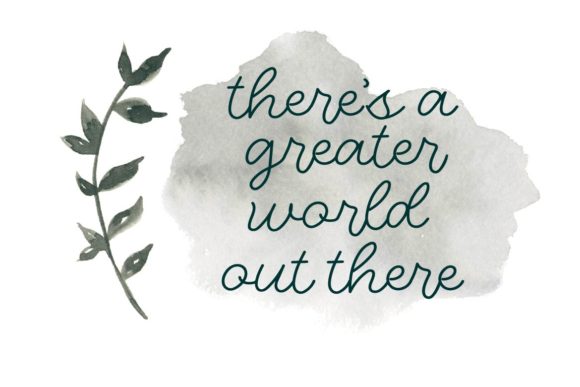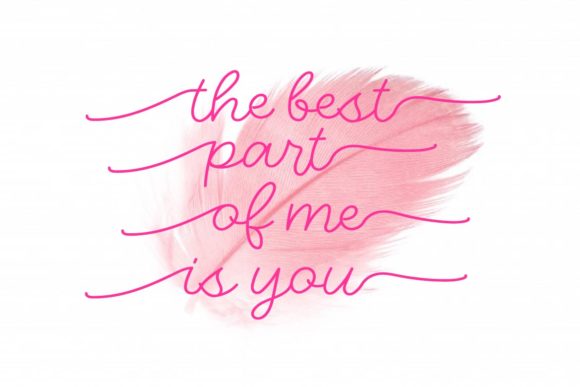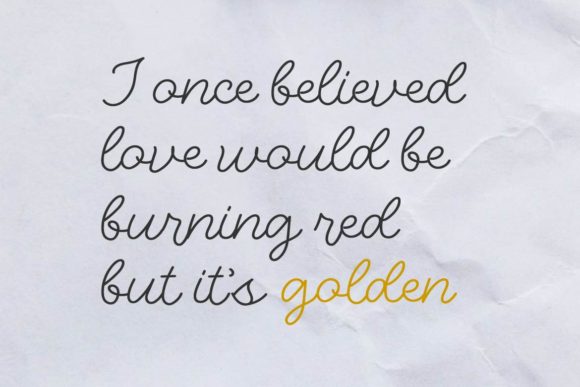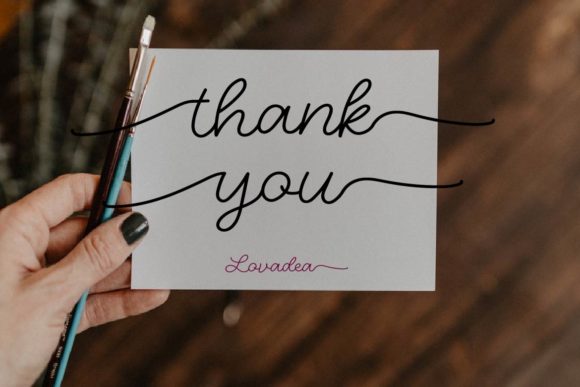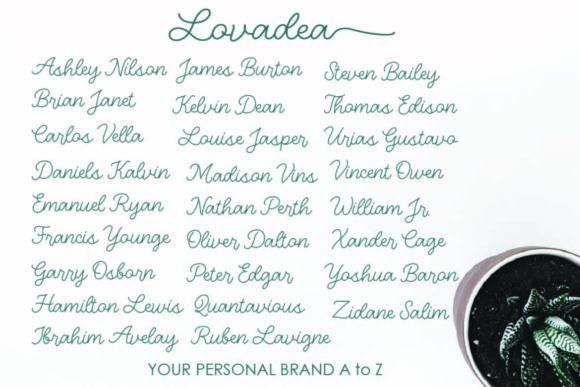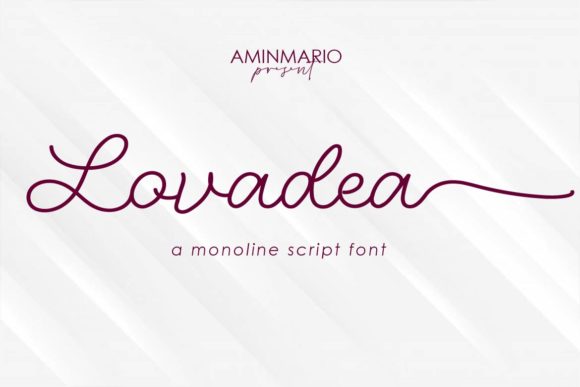
Introduction to Lovadea Font
As a designer, there’s nothing quite like the thrill of stumbling upon a new font that perfectly captures the essence of your creative vision. For me, that moment came when I discovered Lovadea Font – a stunning monoline script that exudes personality and charm. Its natural flow is like a breath of fresh air, making it the perfect addition to any project that requires a handwritten feel.
With Lovadea Font, the possibilities are endless. Imagine creating gorgeous wedding invitations, beautiful stationery art, or eye-catching social media posts that stand out from the crowd. Whether you’re a seasoned designer or just starting out, this high-quality design resource is sure to inspire your next creative project.
One of the best things about Lovadea Font is its versatility – it’s perfect for a wide range of applications, from greeting cards to web design. Plus, with a transparent background, you can easily layer it over other elements to create a unique look. And the best part? Lovadea Font is available for free download, making it a valuable asset for any designer looking to elevate their work.
Key Features of Lovadea Font
- Unique, elegant design that sets it apart from other fonts
- Perfect for use in digital and print projects, including logos, branding, and more
Honest Review: Lovadea Font
I recently stumbled upon the Lovadea Font, and I must say, it’s a great addition to any designer’s toolkit. This high quality design resource is perfect for creative projects that require a unique and elegant touch. One of the standout features of Lovadea Font is its transparent background, making it easy to integrate with any design.
- ✨ Beautifully crafted letterforms that add a touch of sophistication to any design
- ✨ Highly versatile font that can be used for a variety of creative projects
- ⚠️ Limited character set, which may be a concern for designers working on complex projects
Overall, I’m impressed with the Lovadea Font. It’s a great option for designers looking for a high-quality, unique font to add to their creative projects. While it may have some limitations, it’s definitely worth considering for your next design project.
Tips for Getting the Most Out of Lovadea Font
For the best results, use Lovadea Font in combination with a transparent background to create a seamless design. Experiment with different font sizes and colors to achieve the perfect balance for your creative project. You can also use Lovadea Font as a free download to add a unique touch to your designs.
Lovadea Font is ideal for a variety of creative projects, including logos, brochures, and social media graphics. Its high-quality design resource and transparent background make it a popular choice among designers. Whether you’re working on a professional project or a personal creative endeavor, Lovadea Font is a valuable design resource to have in your toolkit.